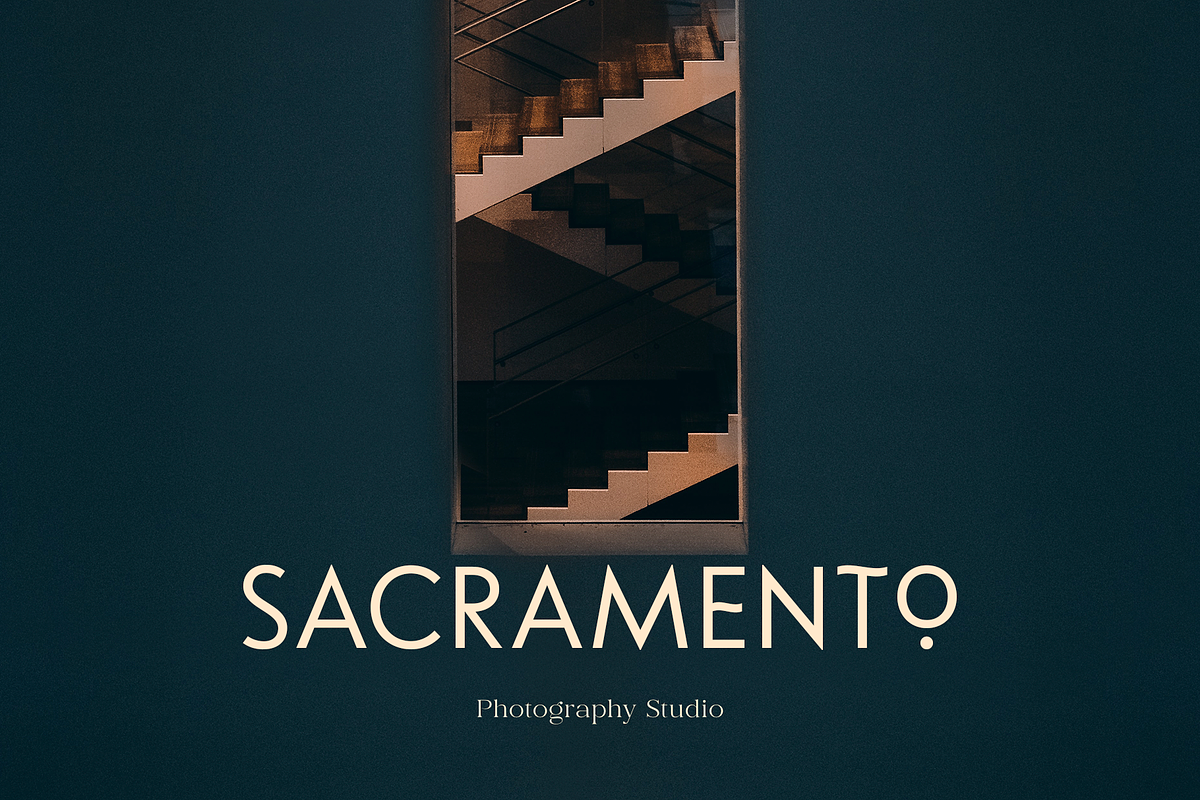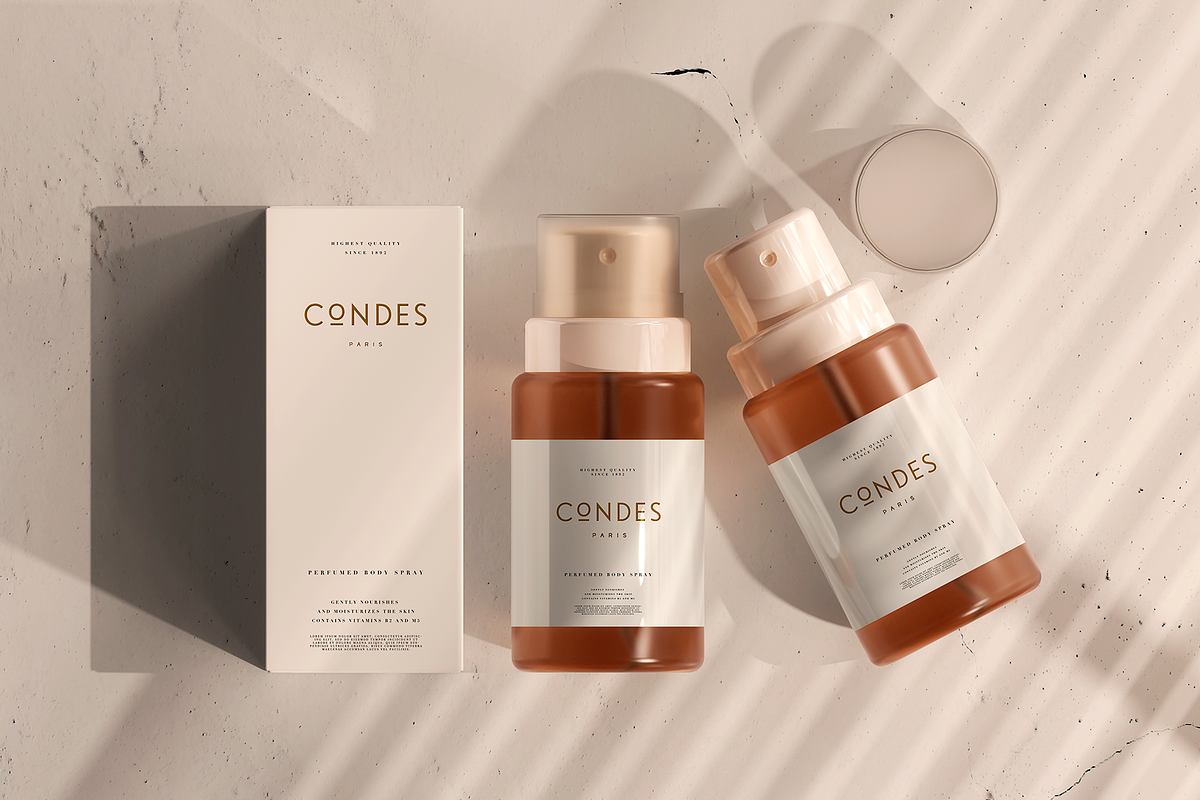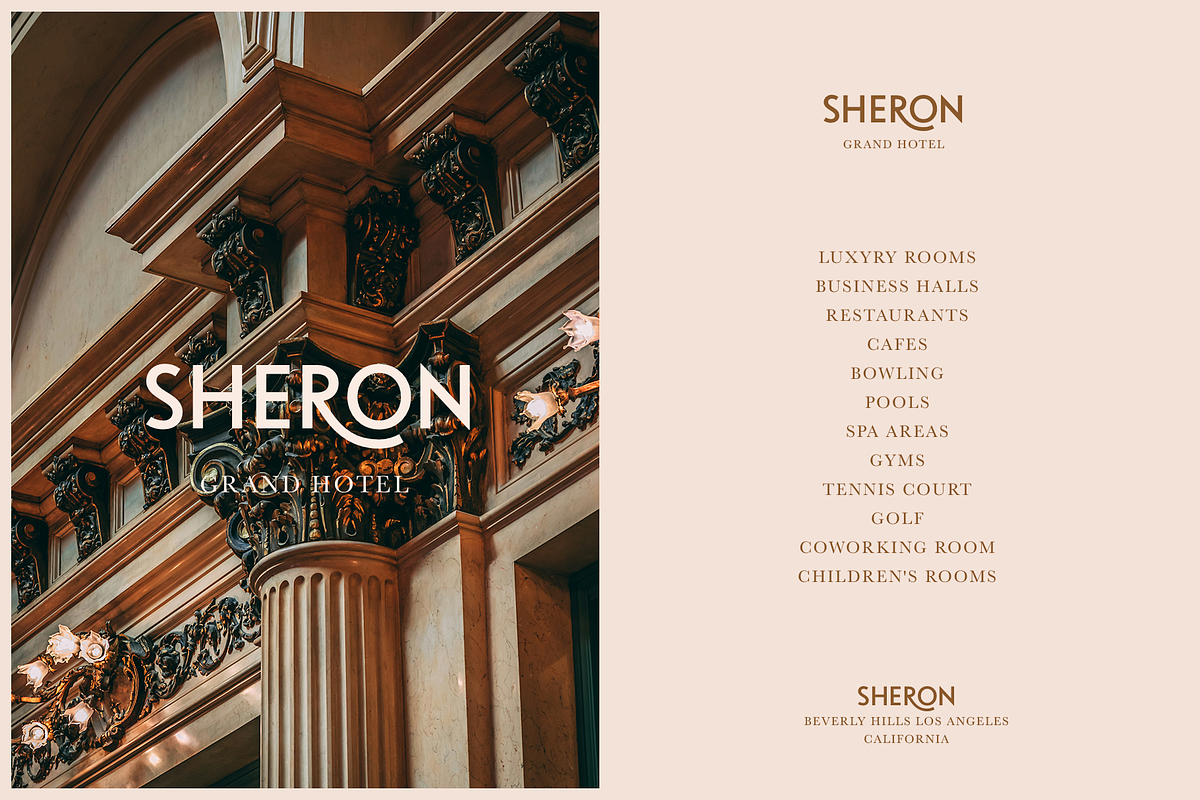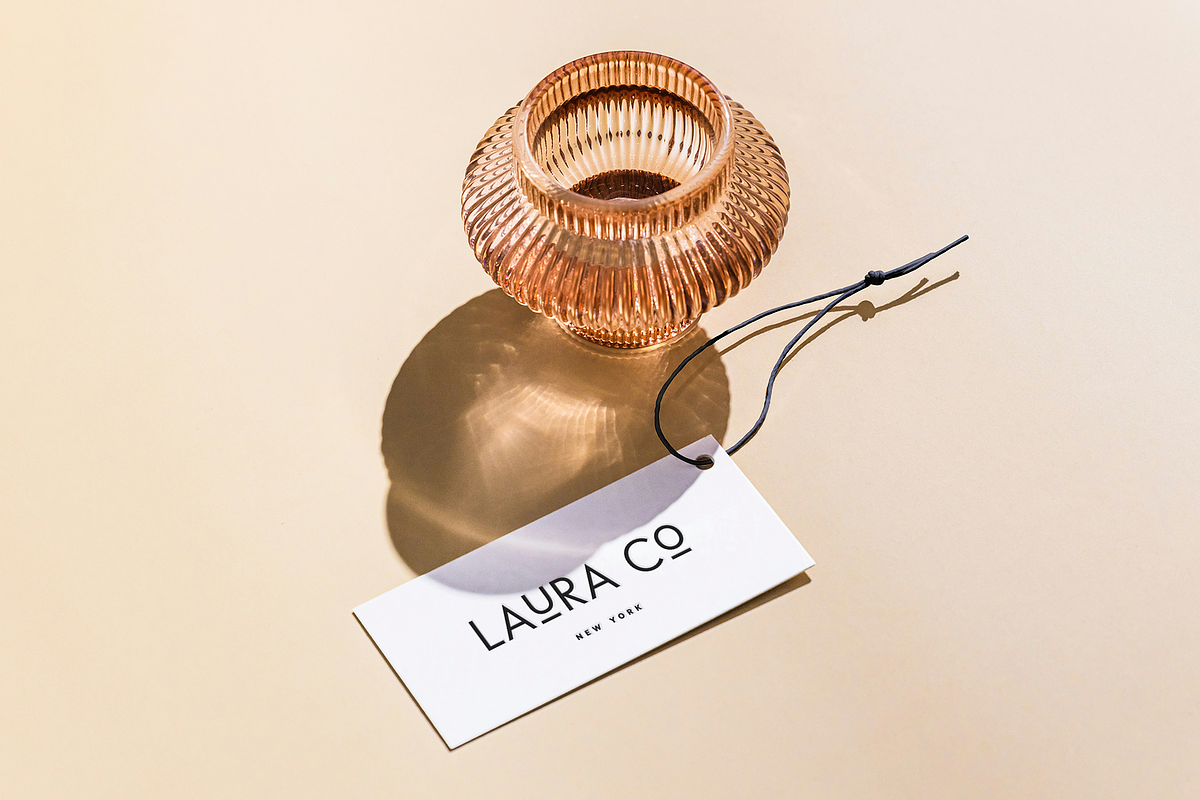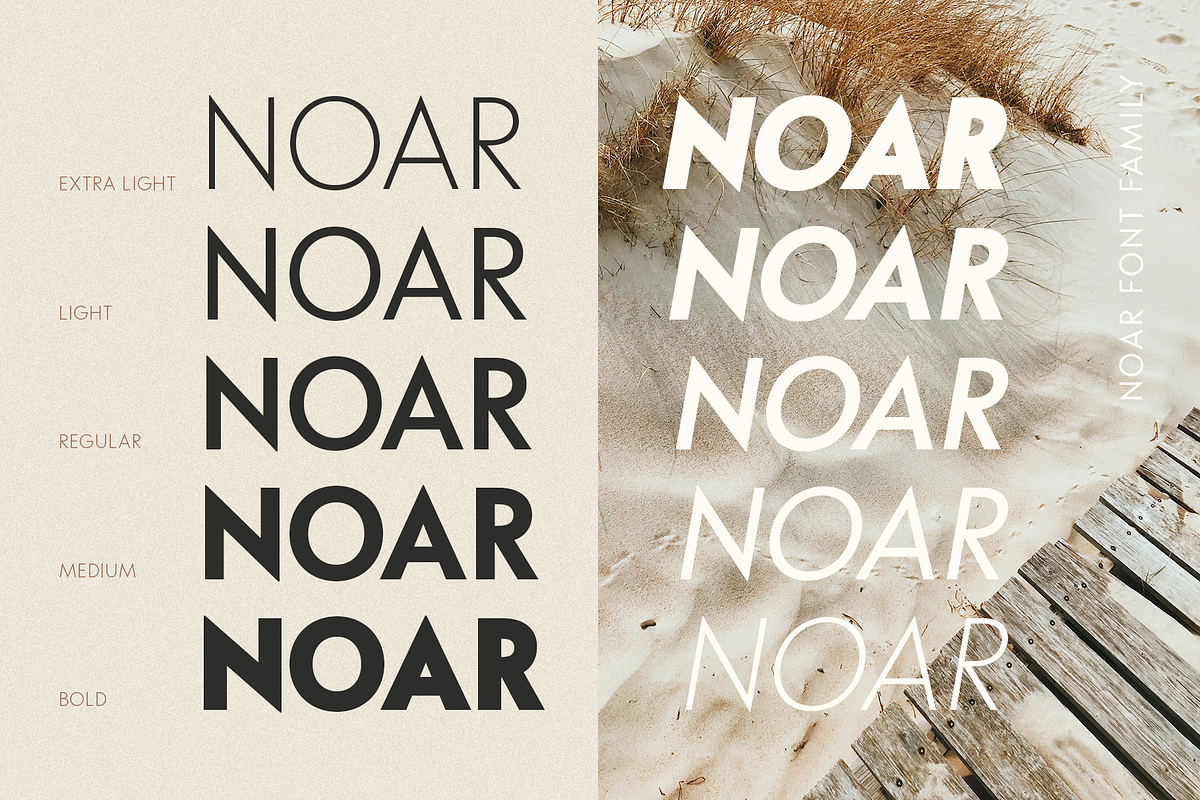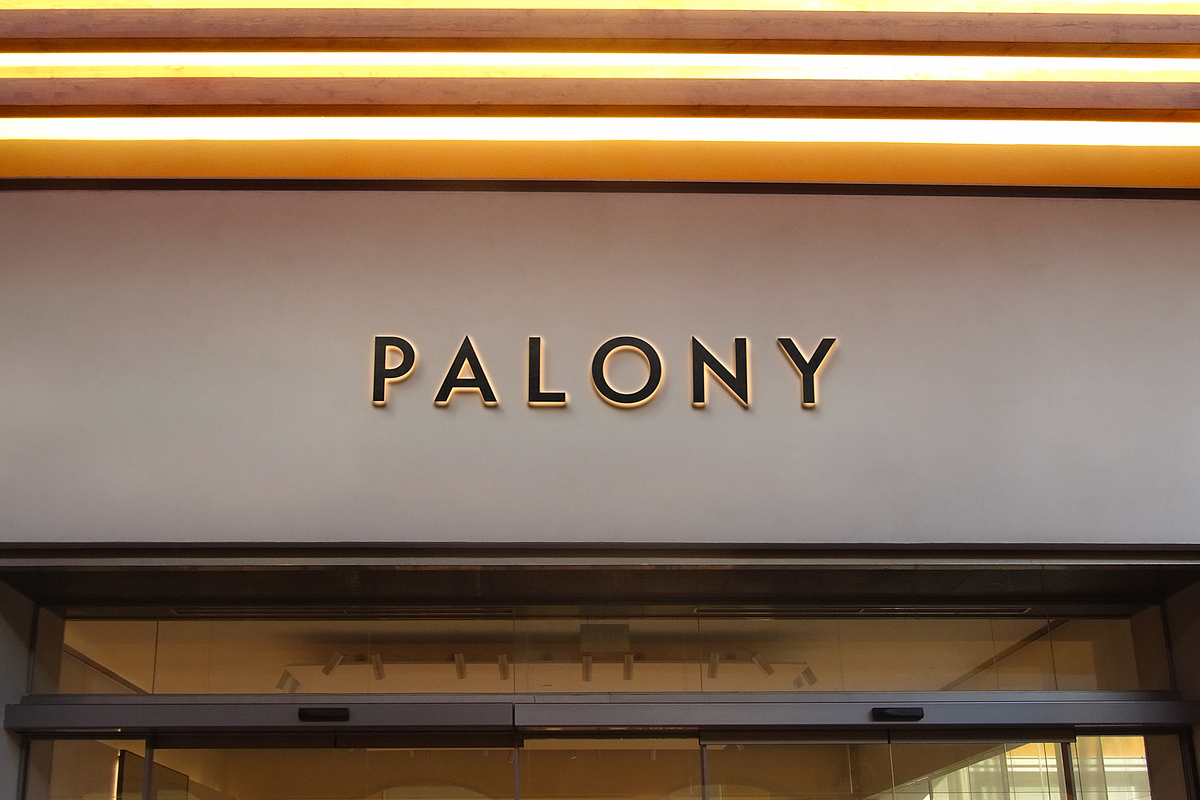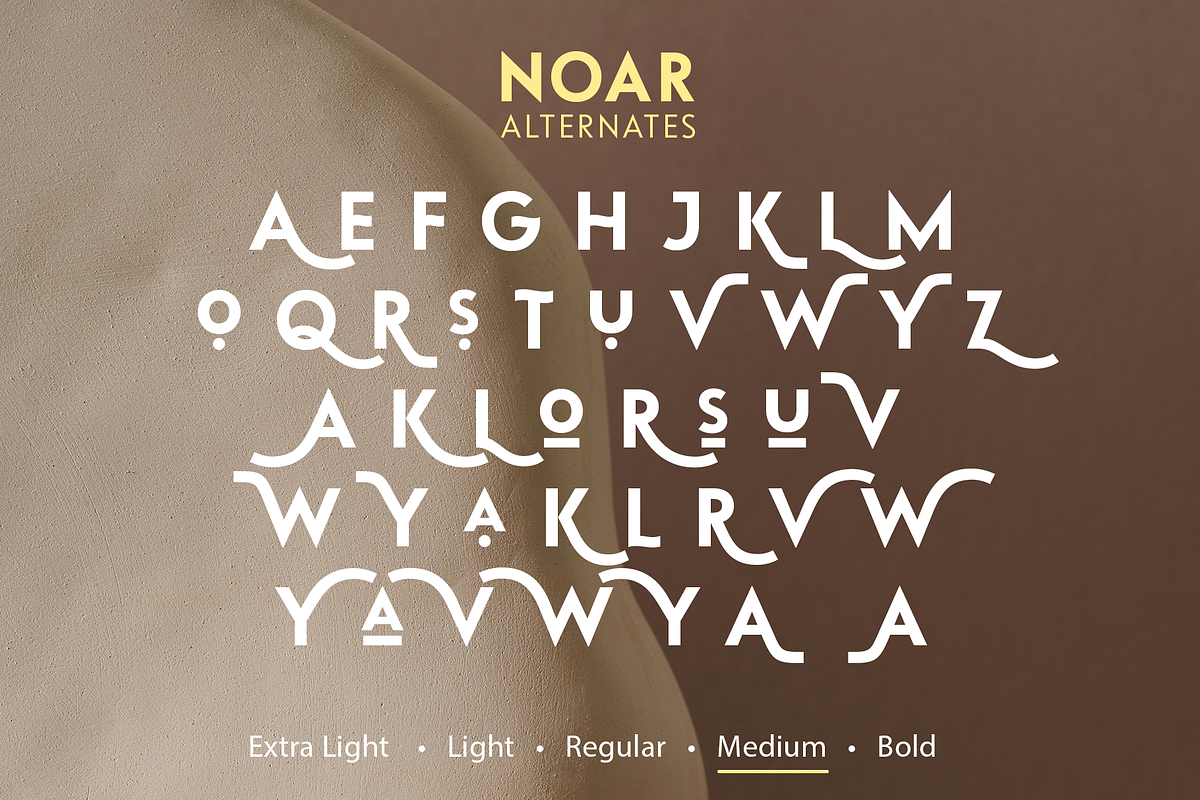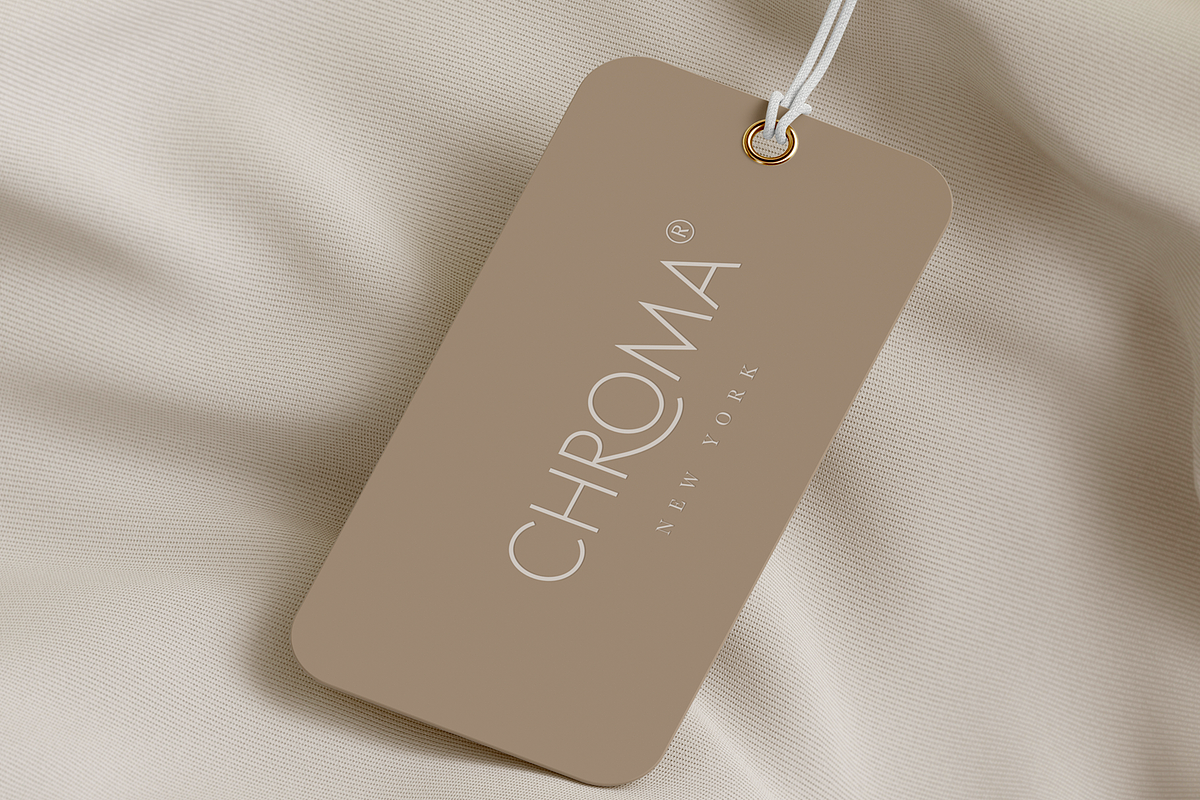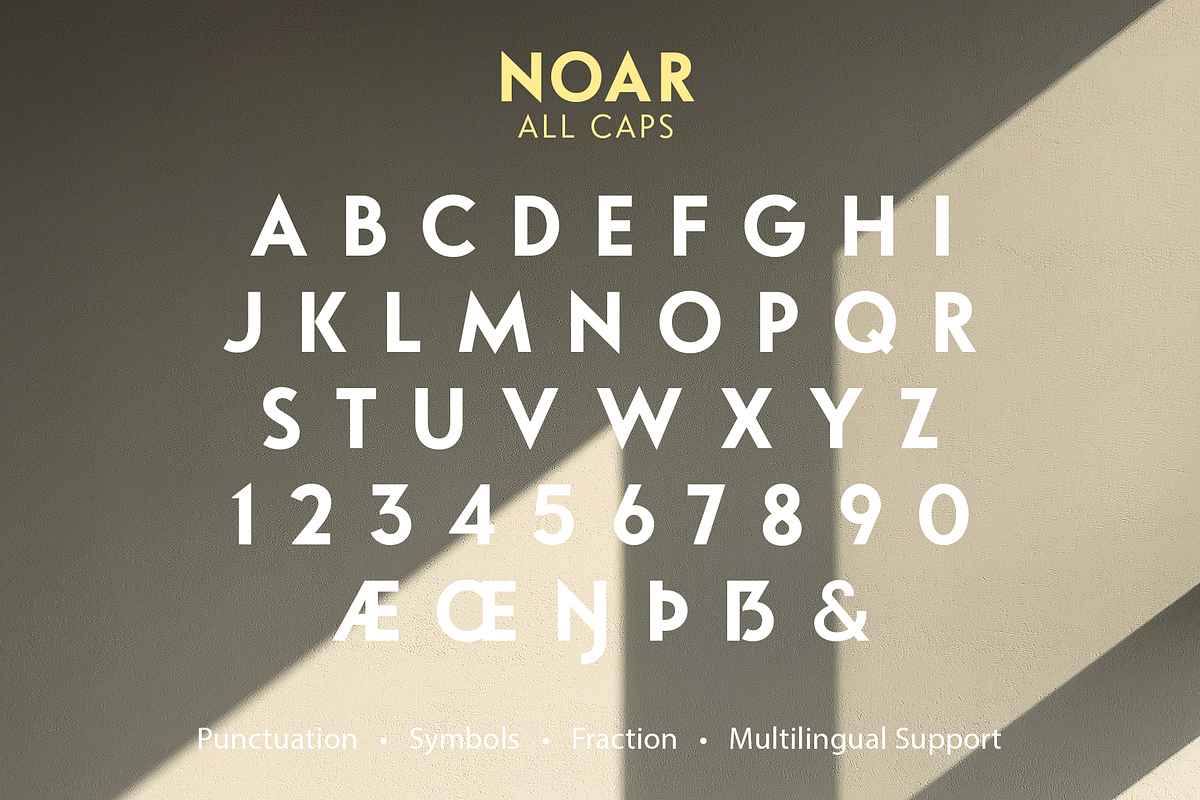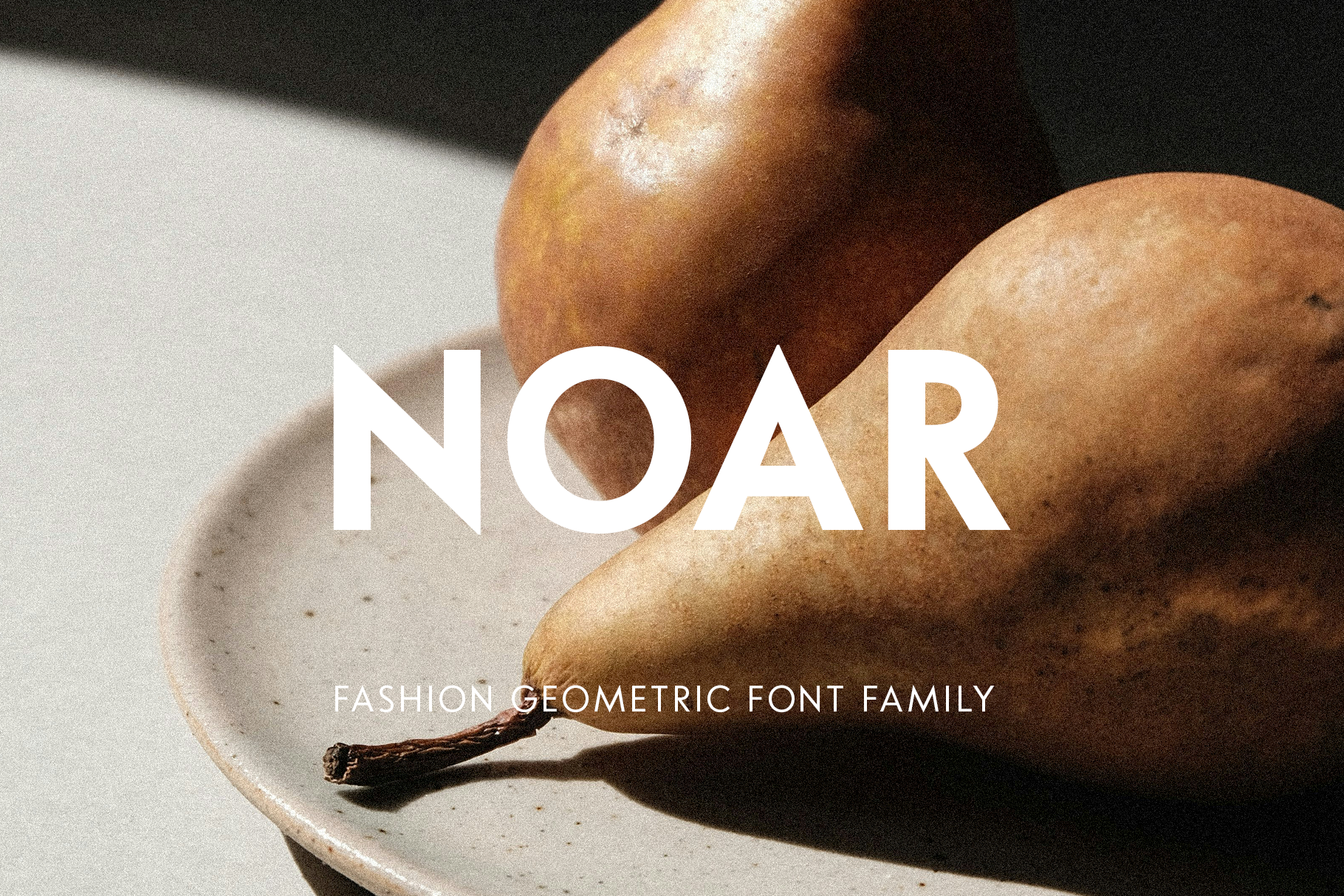
Noar | Font Family
Noar is a modern geometric sans serif with moderately open apertures, low visual contrast and high legibility. It includes 5 weights and italic to them from Extra Light to Bold. It is versatile and suitable for a wide range of applications due to its practicality and conciseness. It works great with text in large, whether it's a title or a description, it will do an excellent job with this task. This font has only capital letters and also includes alternative characters that will add dynamics and authenticity to your project.
With it, you can create logos, labels, use in advertising, packaging, branding, book covers and magazines, cosmetics, banners, posters, headings, descriptions and much more.
Following international symbols support: ÀÁÂÃÄÅĄÇĆÈÉÊËĘÌÍÎÏÐÑŃŁÒÓÔÕÖØÙÚÛÜŚŠŸÝŹŻŽßàáâãäåçèéêëìíîïðñòóôõöøùúûüýÿąćęłńśšźżž